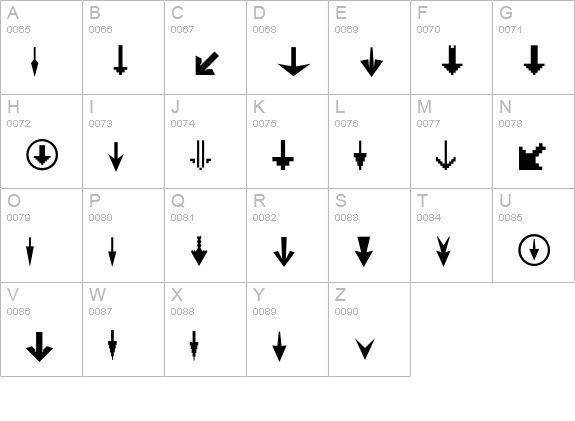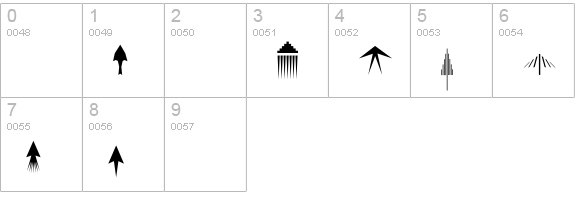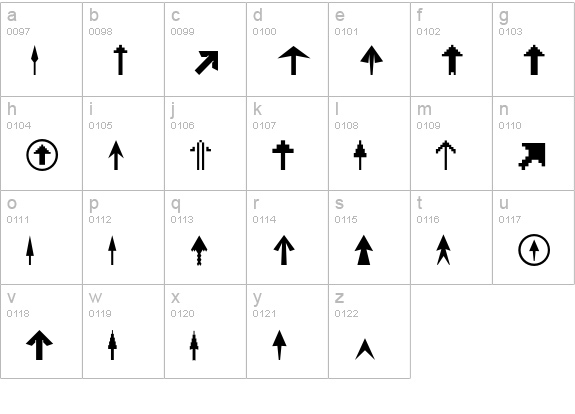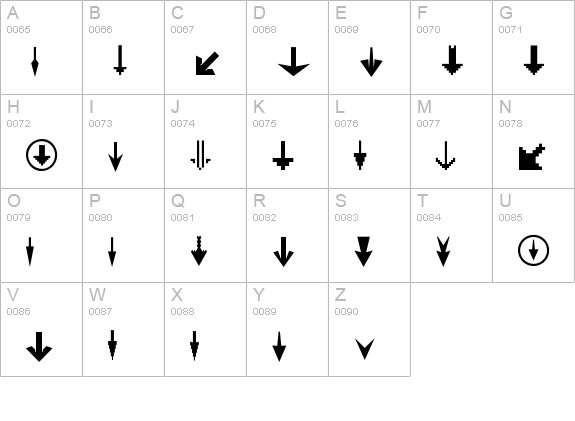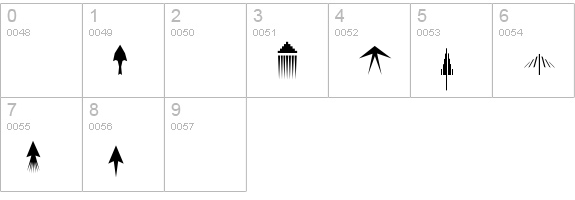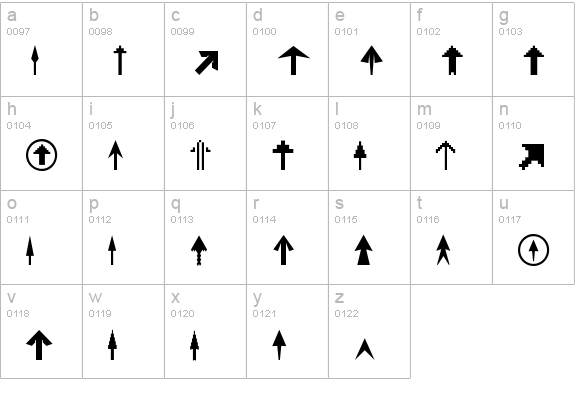
Fleches-UpDown Font Details
Fleches-UpDown font is a modern and stylish typeface that exudes elegance and sophistication. With its sleek lines and unique design, this font is perfect for adding a touch of flair to any project. Whether you're creating a logo, designing a website, or working on a branding campaign, Fleches-UpDown font will make your text stand out. The versatility of Fleches-UpDown font allows it to be used in a variety of settings, from fashion magazines to luxury brands to corporate materials. Its sharp angles and clean lines give it a contemporary feel, while its subtle curves add a touch of softness and sophistication. And the best part? Fleches-UpDown font is completely free to download at FontsMarket.com. That's right - you can add this stunning font to your collection without spending a dime. So why wait? Elevate your designs with Fleches-UpDown font today!